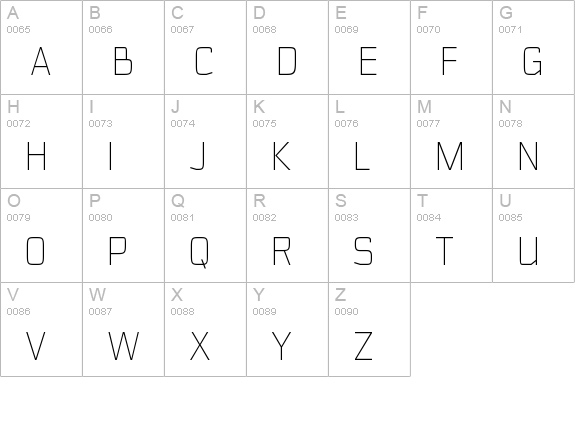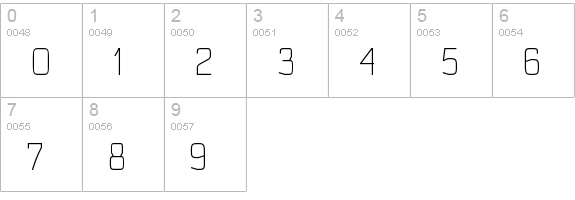
Polyflec Lt Font Details
Polyflec Lt is a modern and versatile font that combines sleek lines with a touch of elegance. Its clean and legible design makes it perfect for a wide range of projects, from branding to editorial design. The balanced proportions and subtle details of Polyflec Lt give it a sophisticated and contemporary look that will elevate any design it is used in. The best part? Polyflec Lt is available for free download at FontsMarket.com. This means you can easily access this high-quality font and use it in your projects without any cost. Whether you are a designer looking for a stylish typeface or a business owner wanting to enhance your branding, Polyflec Lt is a fantastic choice that won't break the bank. Download it today and add a touch of modern elegance to your designs.